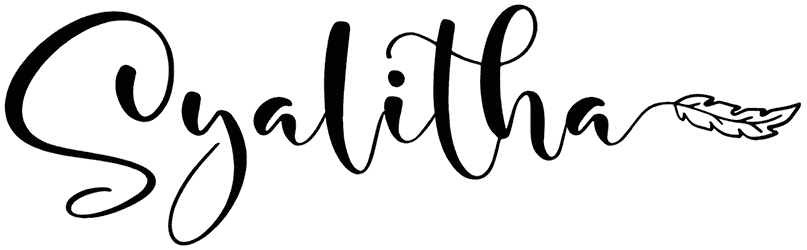
Syalitha Font
If you love designs with a natural outward, Syalitha will be an item that can satisfy you. This calligraphy font has a delicate and smooth letter face and can be harmonized with various themes and projects. With full coverage of characters in two versions, this tattoo font would show off your context in an attractive way.